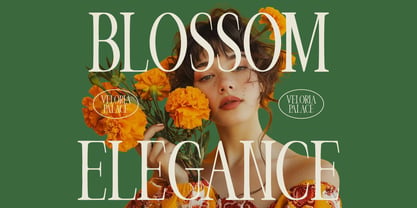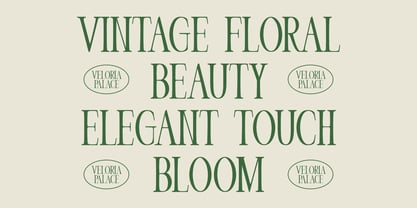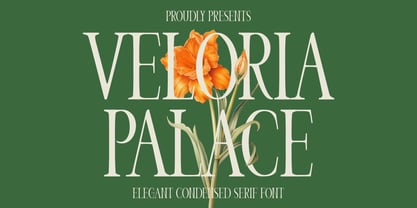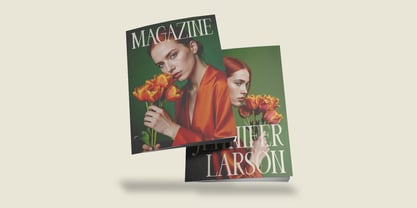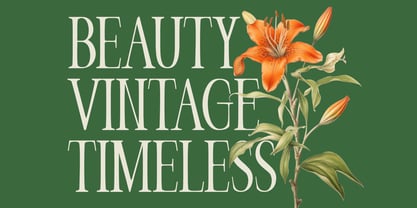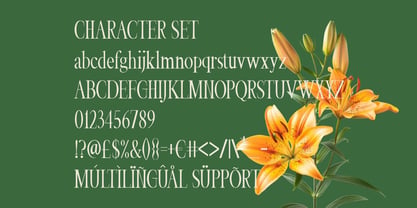
Veloria Palace
par Shanaf
La famille de polices Veloria Palace a été conçue par Yesie Erma Yunita et publiée par Shanaf. Veloria Palace contient 1 styles. En savoir plus sur cette famille
Veloria Palace Classic Serif Font brings a tall, condensed, and graceful serif form for refined visual identity. Its slim vertical rhythm, sharp contrast, and soft curves create a polished voice. The letters feel elegant, classic, vintage, and luxury without losing clean readability. This font suits beauty logos, magazine mastheads, floral branding, palace-inspired identity, and boutique campaigns. Designers can use it for headline layouts, poster titles, editorial covers, website headers, and quote designs that need calm sophistication.
The font also fits cosmetic brands, skincare labels, salon menus, spa brochures, perfume packaging, candle labels, and product branding. Its formal structure gives each word a graceful presence across beauty, wellness, lifestyle, and floral business themes. Veloria Palace Classic Serif Font works well for invitation titles, wedding stationery, greeting cards, book covers, and advertising layouts. The character shape feels narrow yet expressive, so it can build strong names without crowding the design.
Use this font when your project needs elegance, heritage, and a refined editorial mood. The uppercase letters create strong logo marks, while lowercase characters support balanced text accents. Its numbers and punctuation help complete labels, packaging, price details, magazine captions, and restaurant branding. The style also supports hotel identity, luxury service branding, floral shop visuals, boutique signs, and classic campaign graphics. Multilingual support gives designers more freedom for global beauty, magazine, and product projects.
Concepteurs: Yesie Erma Yunita
Fonderie: Shanaf